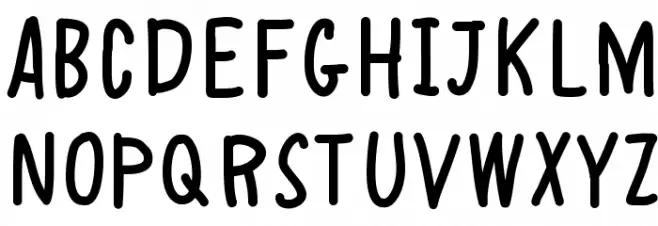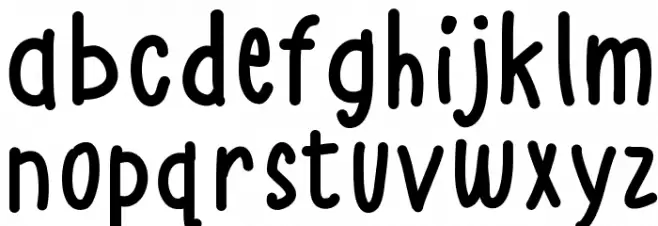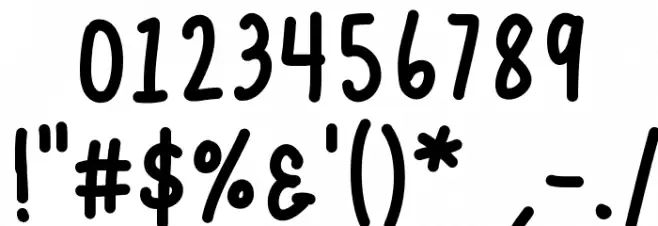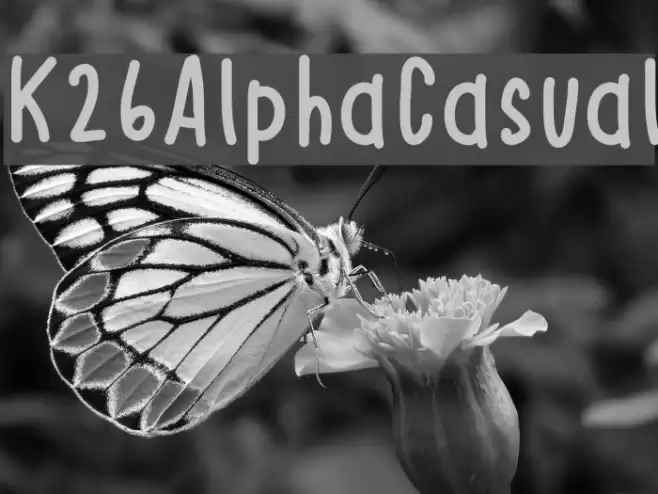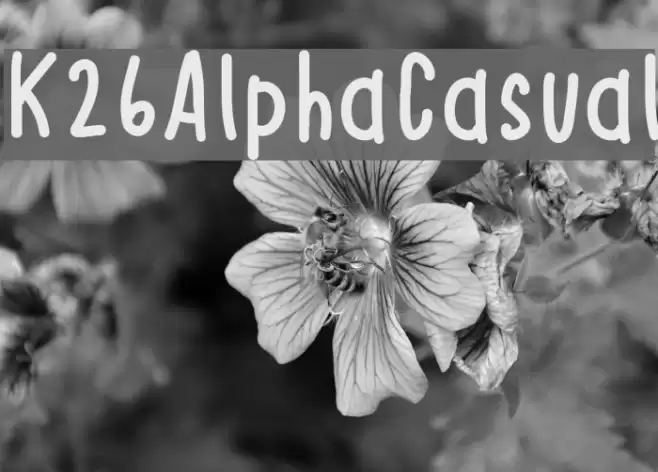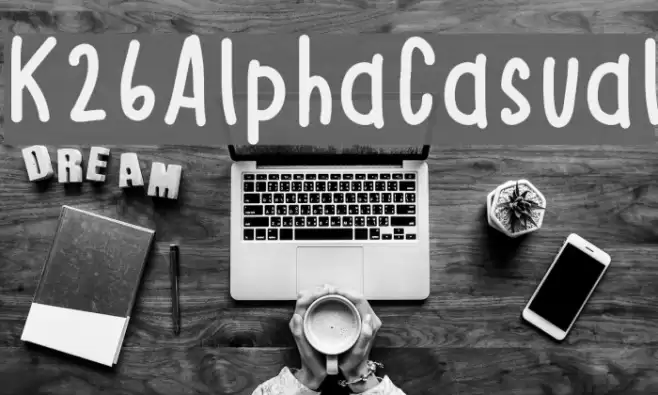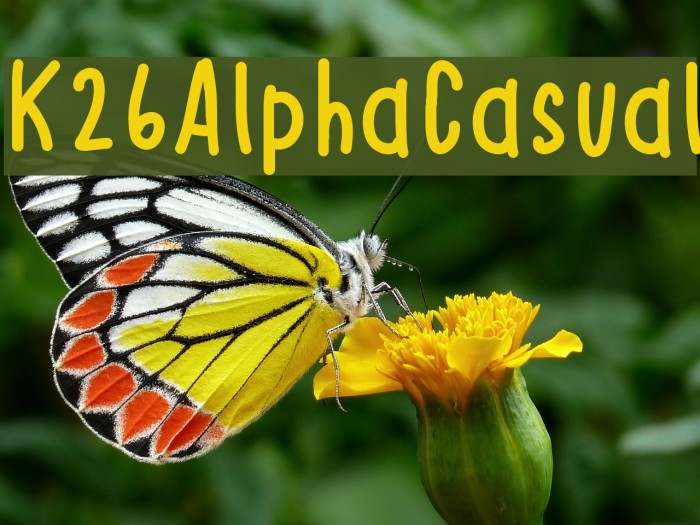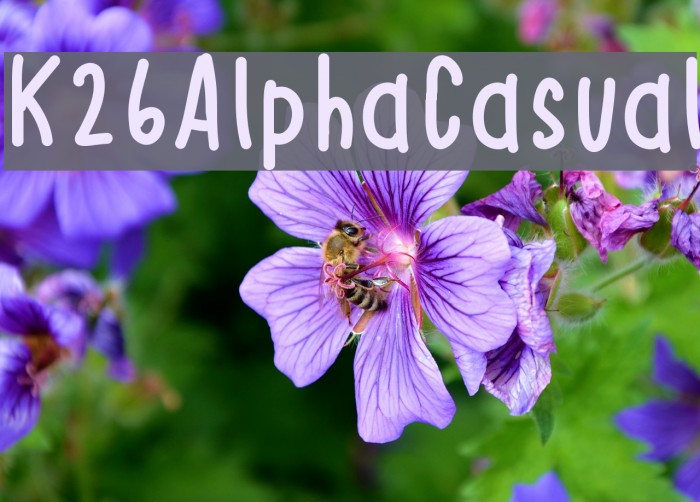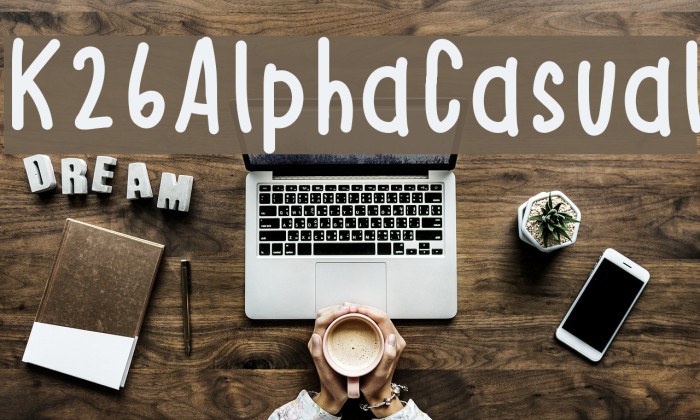
K26AlphaCasual
This playful and casual font exudes a friendly and approachable vibe, characterized by its rounded and slightly irregular letterforms. The strokes are consistent in width, giving it a uniform appearance while maintaining a hand-drawn feel. The uppercase and lowercase letters are well-balanced, with a slight tilt that adds to its informal charm. Numbers and special characters are crafted with the same playful style, making them easily readable and visually appealing. This font is perfect for projects that require a touch of whimsy and personality, such as children's books, greeting cards, or casual branding.
A playful, hand-drawn font with rounded, slightly irregular letterforms.
- Proposed Projects: Ideal for children's books, greeting cards, casual branding, and playful designs.
- Overall Style: Casual
- Use Case: Headlines, Logos, Informal Text